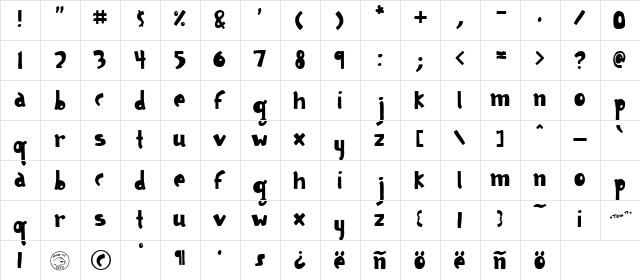
Geodesic Regular
| Foundry | [ Divide By Zero ] |
| Designer | Tom Murphy 7 |
Design Context for Geodesic Typeface
Geodesic is a composed and adaptable typeface that performs quietly and consistently across a wide range of design contexts.